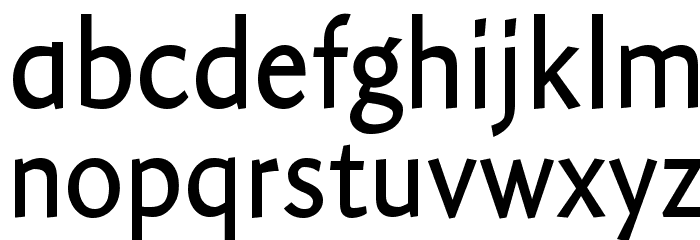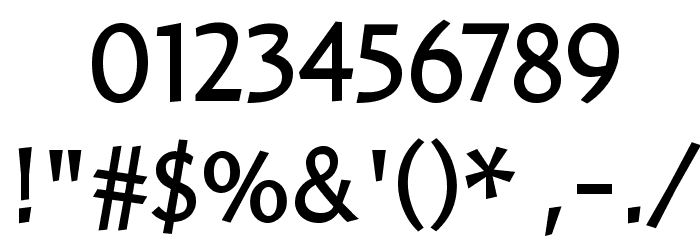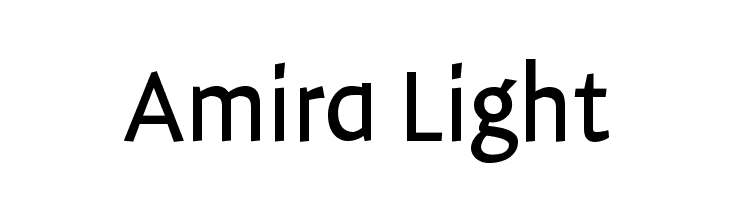
Amira Light Font
This font features a clean and modern sans-serif style with a light weight, making it highly readable and versatile. The characters are well-proportioned with a consistent stroke width, contributing to a harmonious appearance. The uppercase letters are bold and assertive, while the lowercase letters maintain a friendly and approachable feel. The numerals are clear and distinct, ensuring legibility in various contexts. Special characters are designed with simplicity and clarity, enhancing the font's usability across different applications.
A modern, light sans-serif font with excellent readability and versatility.
- Font: Amira Light
by Kemal - Weight: Light
- Proposed Projects: Ideal for web design, branding, advertising, and editorial projects where clarity and modernity are essential.